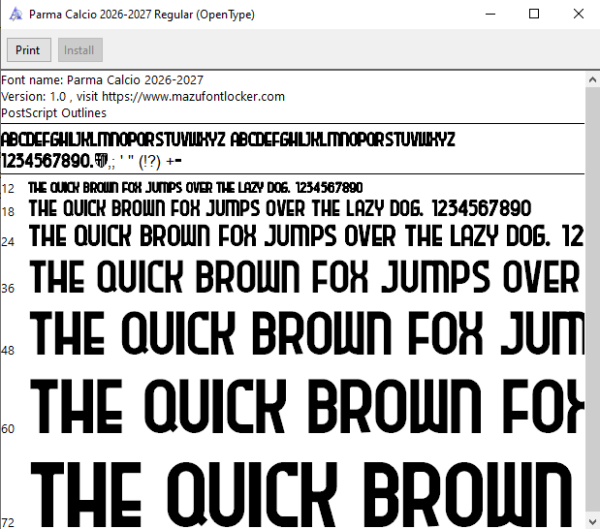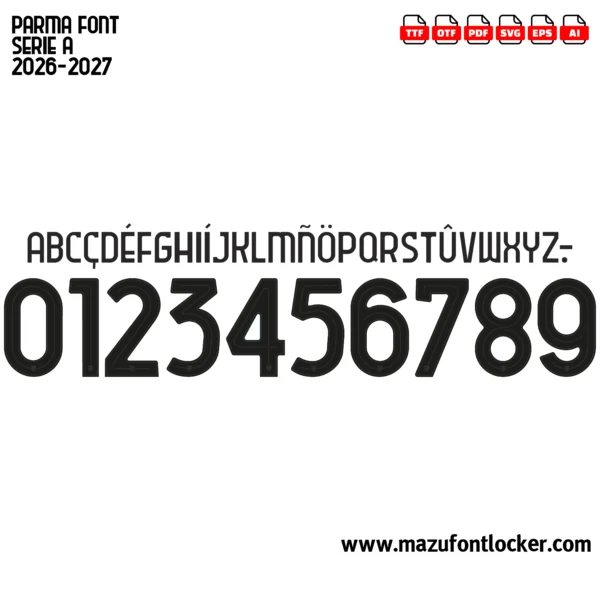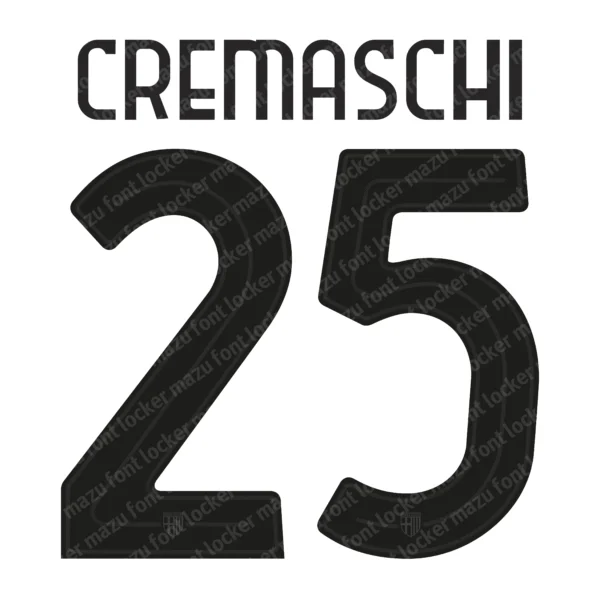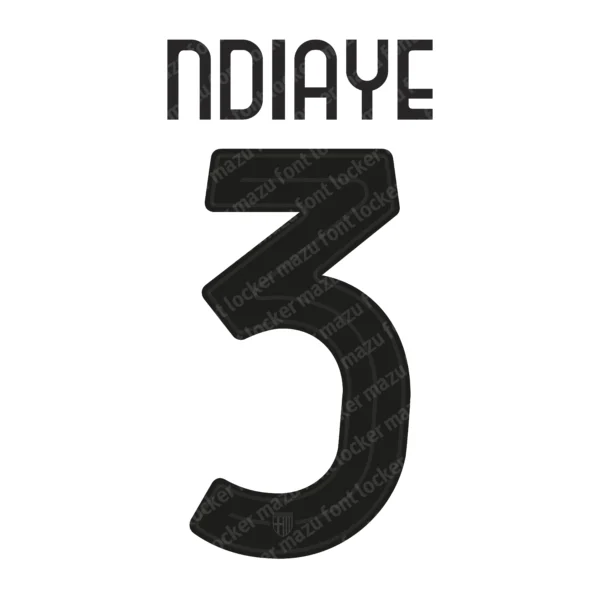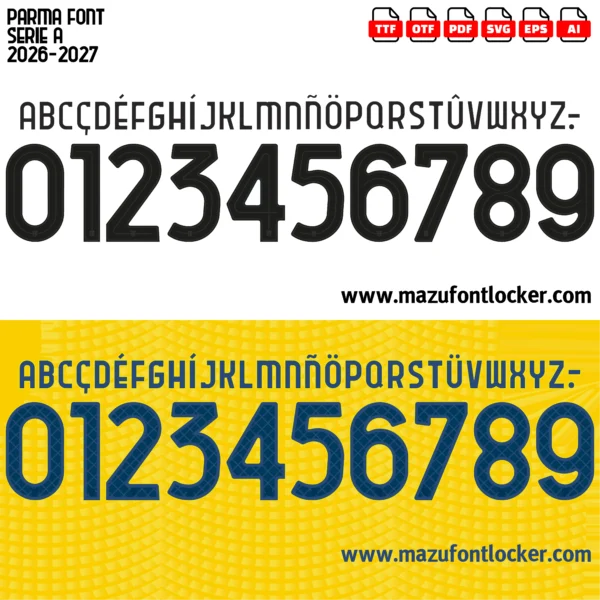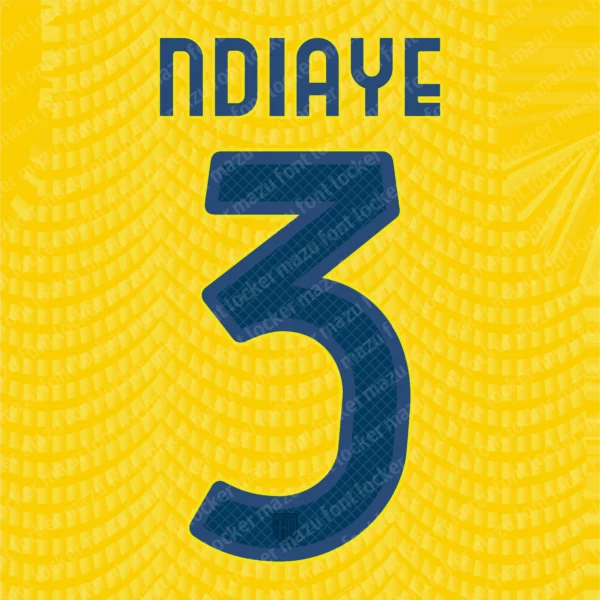
Parma Calcio 2026-2027 Font Vector – Authentic Parma Calcio Typeface
The Parma Calcio 2026-2027 Font Vector is a premium typeface that accurately recreates the official match lettering worn by Parma Calcio during the 2026-2027 Serie A and cup campaigns. This high-quality vector font kit captures the bold, classic, and historic typography that represents the pride, tradition, and fighting spirit of the Gialloblù.
Designed for professional designers and passionate Parma fans, the Parma Calcio 2026-2027 Font Vector delivers perfect authenticity for creating realistic jersey mockups, fan merchandise, matchday posters, social media graphics, and Italian football content. It pairs beautifully with the iconic home kit featuring the famous black cross on a warm white base.
This font stands out because of its sharp vector precision and strong club identity. Every letter and number is crafted to match the exact style used on the players’ shirts during the 2026-2027 season. Whether you are making realistic kit templates or exciting Parma content, the Parma Calcio 2026-2027 Font Vector gives your designs that authentic Emilian look.
The letterforms in the Parma Calcio 2026-2027 Font Vector are tall, bold, and highly readable. The strokes have a strong, clean weight with excellent edge definition that looks powerful on the back of jerseys while maintaining classic Italian heritage and modern strength.
• Full uppercase A–Z and numbers 0–9 in authentic Parma Calcio 2026-2027 style
• Special Parma crest glyph – Press the “:” (colon) symbol to insert the Parma Calcio logo
• Create highly realistic Parma Calcio 2026-2027 home and away jersey mockups with accurate lettering
The Parma Calcio 2026-2027 Font Vector is an independently designed typeface package. It is carefully crafted to replicate the official shirt lettering style of the 2026-2027 season. This font kit is perfect for creative projects, fan edits, nostalgic jersey designs, and custom football graphics.